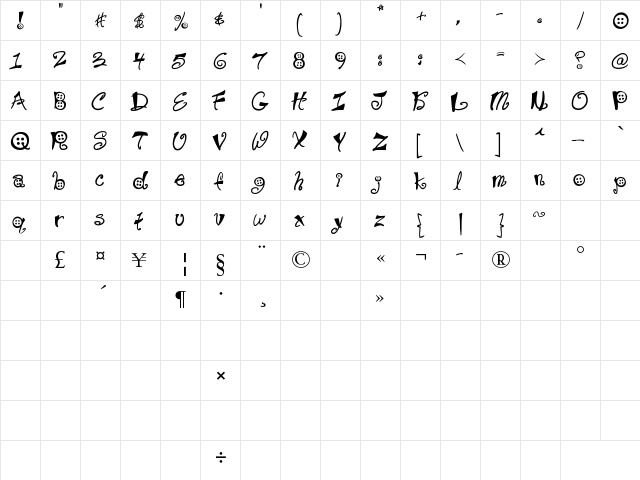
Buttons & Patches Regular
Design Context for Buttons & Patches Typeface
Buttons & Patches is a composed and adaptable typeface that performs quietly and consistently across a wide range of design contexts.